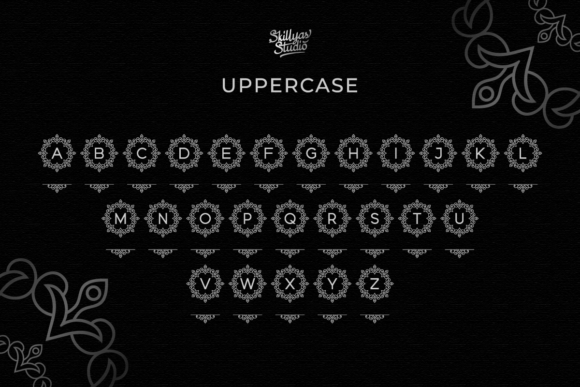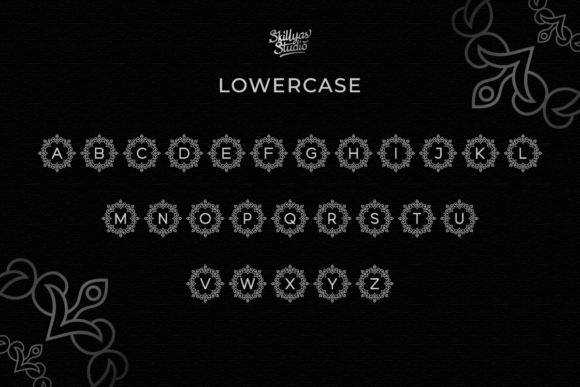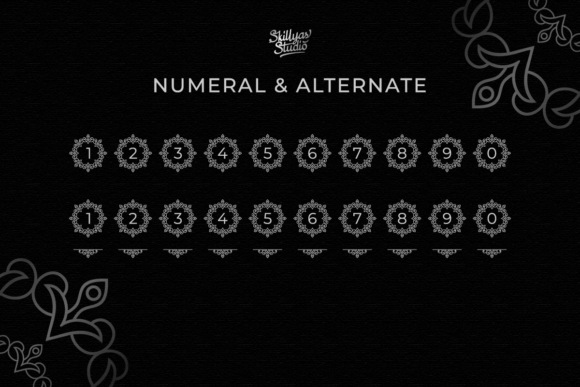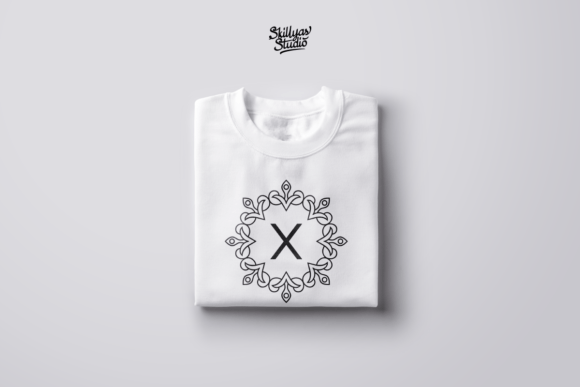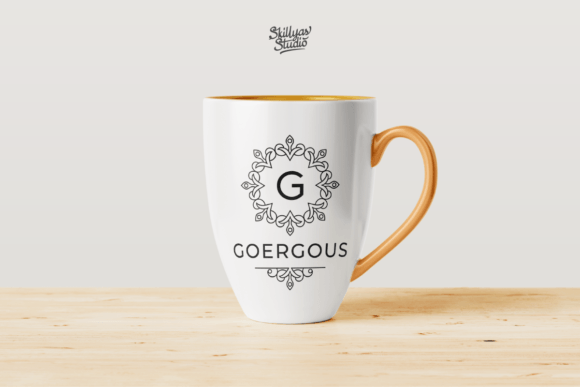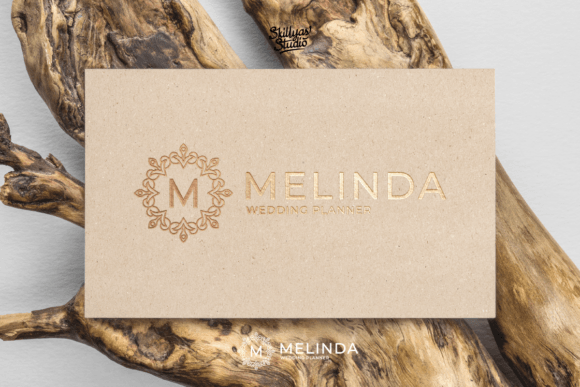
Introduction to Royaline Flower Monogram Font
As you sit in front of your design software, the blank canvas staring back at you can be daunting. The blank page, once a canvas of endless possibility, now seems like a daunting challenge. But then, a spark of creativity ignites within you. You start to envision the perfect font, one that exudes elegance and sophistication, perfectly capturing the essence of your project.
Enter the Royaline Flower Monogram Font, a game-changing design resource that will elevate your creative project to new heights. With its intricate floral motifs and high-quality design, this font is a must-have for any designer looking to add a touch of royal charm to their work.
Not only is the Royaline Flower Monogram Font a stunning addition to any project, but it’s also incredibly versatile. With a transparent background, you can easily integrate it into your design, making it the perfect choice for any creative endeavor. And the best part? You can download it for free, giving you the freedom to experiment and push the boundaries of your creativity.
Key Features of Royaline Flower Monogram Font
- Unique, elegant monogram font design featuring intricate floral patterns and royal-inspired elements
- Large character set with over 200 glyphs, including uppercase and lowercase letters, numbers, and special characters
- Perfect for wedding invitations, branding, and other special occasion projects where a touch of luxury is desired
Honest Review: Royaline Flower Monogram Font
As a designer, I’m always on the lookout for unique and high-quality design resources to elevate my creative projects. Recently, I came across the Royaline Flower Monogram Font, and I’m excited to share my honest review with you.
- ✨ Beautiful, intricate design that adds a touch of elegance to any project
- ✨ High-quality vector graphics that can be scaled up or down without losing any detail
- ✨ Includes a range of monogram options to suit different tastes and preferences
One of the standout features of the Royaline Flower Monogram Font is its transparent background, which makes it easy to integrate into any design project.
- ⚠️ Limited character set, which may not be suitable for extended text-based projects
- ⚠️ May not be as versatile as some other monogram fonts on the market
Overall, I’m impressed with the Royaline Flower Monogram Font and would highly recommend it to designers looking for a unique and high-quality design resource for their creative projects.
How to Use Royaline Flower Monogram Font
The Royaline Flower Monogram Font is a high-quality, free download design resource perfect for adding a touch of elegance to your creative project. With its delicate floral design and transparent background, this font is ideal for various applications.
The Royaline Flower Monogram Font is commonly used in:
Floral-themed designs and patterns
Stationery and greeting cards